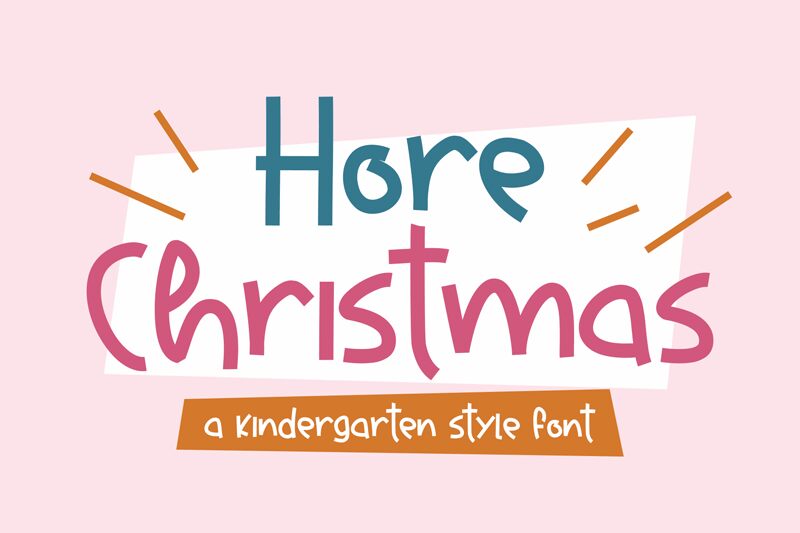
Hore Christmas
Hore Christmas, designed by Mabhal Studio, is a captivating display font that adds a touch of whimsy to any project. With its semi-light weight and comic style, this font is perfect for creating festive holiday graphics, greeting cards, and invitations. Whether you're designing cheerful Christmas-themed social media posts or crafting playful children's book illustrations, Hore Christmas brings joy and excitement to your designs. Its unique blend of charm and readability makes it an ideal choice for adding a festive touch to branding materials or creating eye-catching headlines that stand out from the crowd.